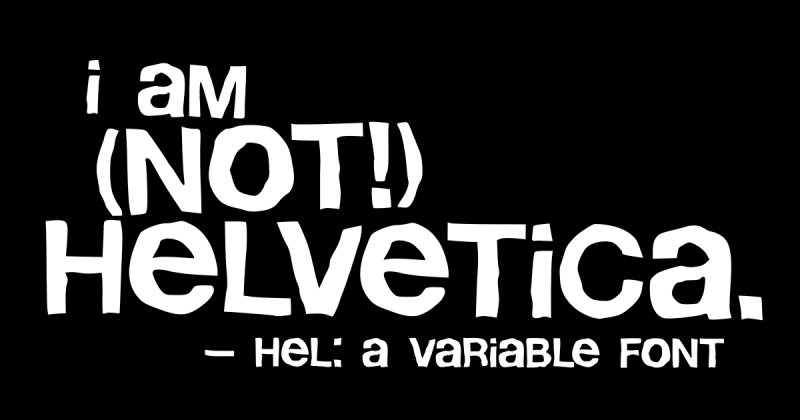
Hel is a deliberately distorted variable font with three customizable axes: Slant for faux italics, Warp for character distortion effects, and Shrink for baseline disruption. The font includes 80 glyphs, 15 contextual alternates, and is designed for creating gritty, DIY aesthetic web pages while maintaining performance through CSS font-variation-settings animation rather than resource-intensive SVG filters.